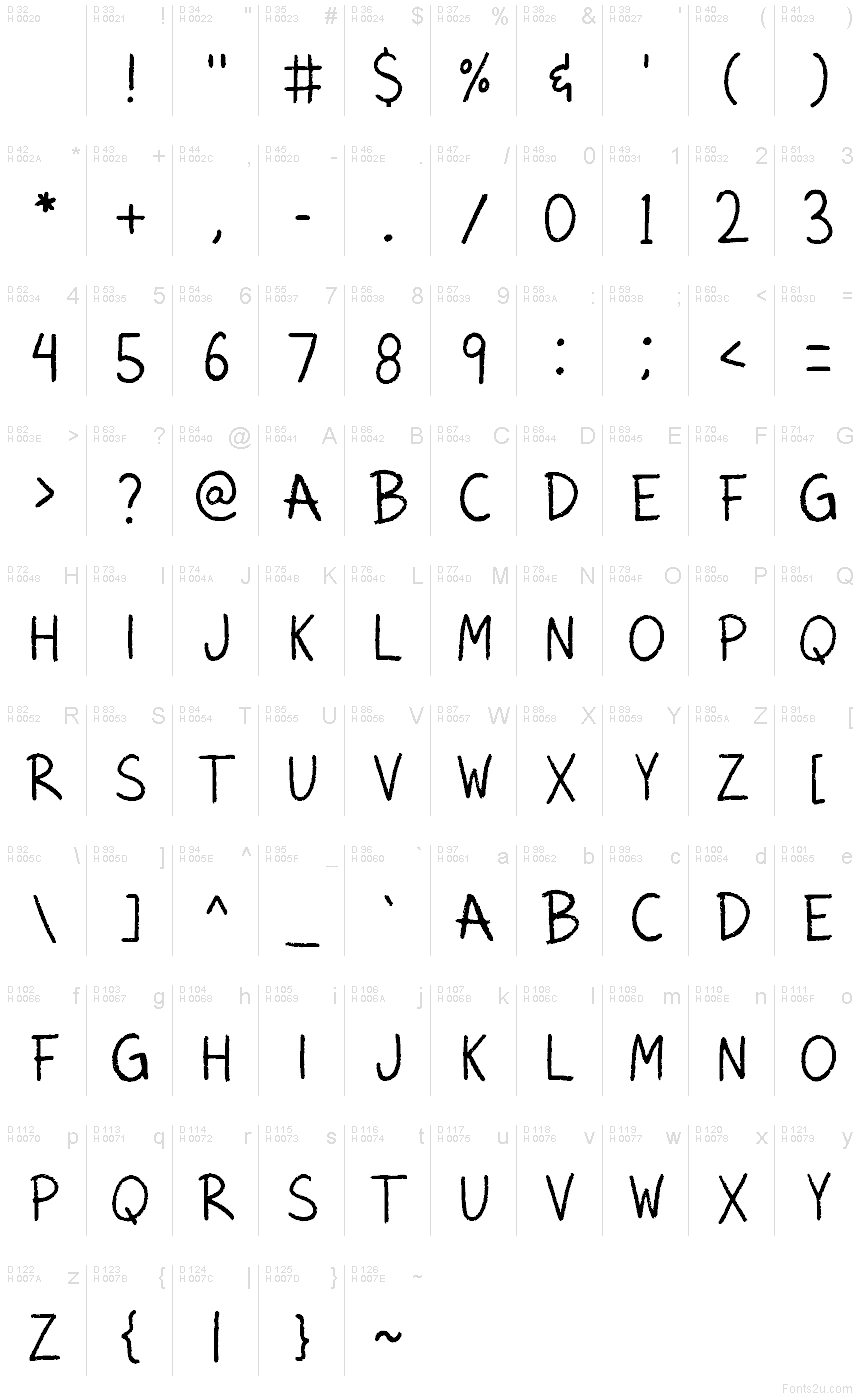
Chalkboard Pro Regular
Chalkboard Pro font by Geronimo Font Studios is a free handwritten font that nails the chalk-on-slate vibe without the mess. Grainy strokes, soft corners, and a gentle wobble create warmth, while the spacing keeps it readable at a glance. It’s the quick fix when you want friendly, schoolroom energy that still scans clean on screens and signs.
Using Chalkboard Pro, your classroom posters, café menus, kids’ invitations, back-to-school promos, tutoring brands, farmers’ market signs, and DIY labels get a lively, human touch. The textured rhythm adds charm without turning sloppy, so headlines pop and notes feel personal. For balance, pair this free typeface with a tidy geometric sans and keep body copy a size or two smaller than your headers.